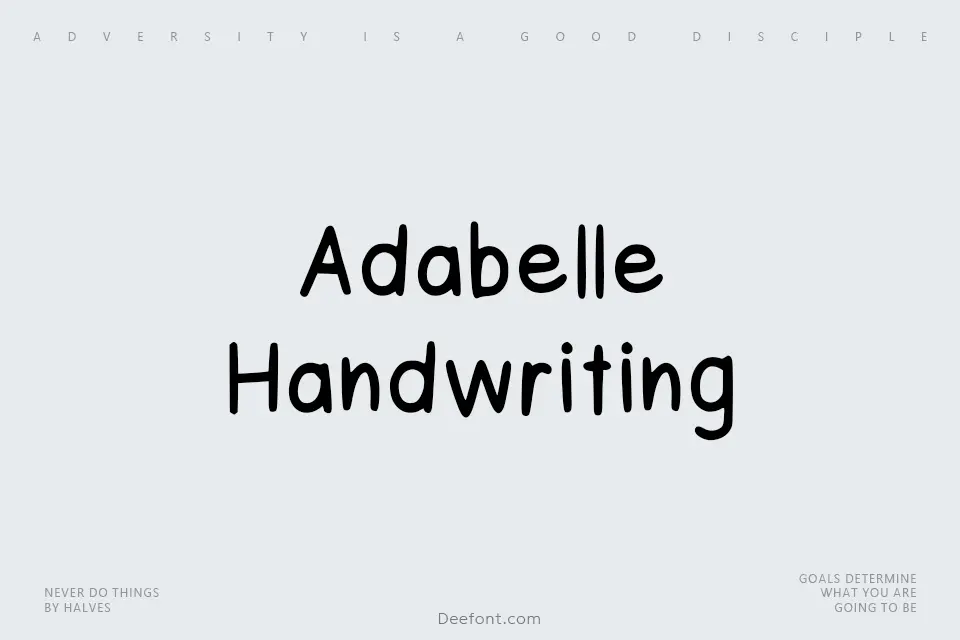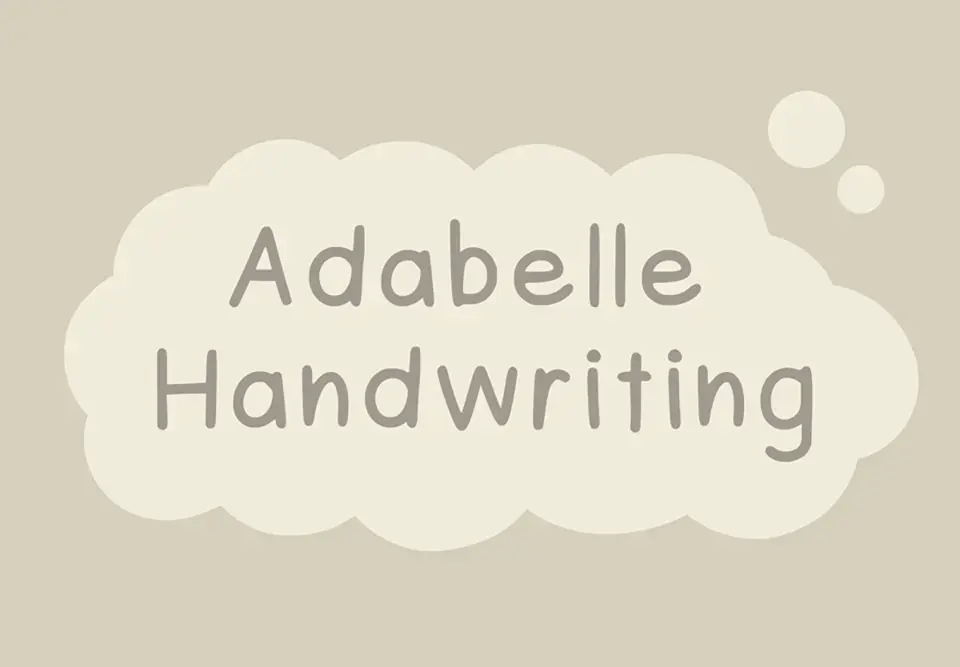
Adabelle Handwriting Font
Adabelle Handwriting is a charming, free handwritten script font that captures the playful essence of natural, informal handwriting with characteristic quirky strokes and flowing letterforms. This versatile typeface features a casual, friendly aesthetic ideal for display purposes including posters, greeting cards, social media graphics, product packaging, and creative invitations. The font’s relaxed character makes it perfect for headlines, titles, and branding projects that require a personal, approachable touch, while its smooth, natural curves and organic letterforms evoke a sense of genuine human craftsmanship and warmth.